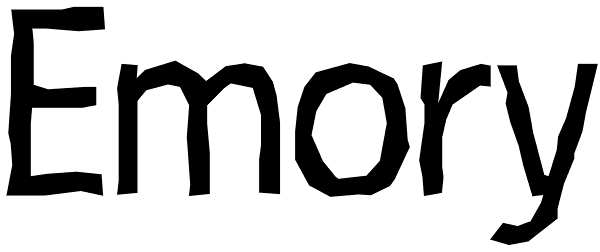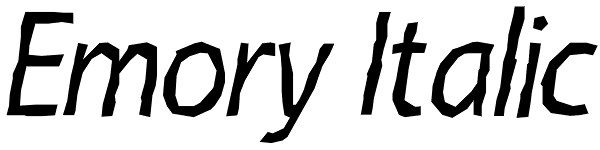
Emory
Emory is an easy to grip font family. In OpenType savvy applications, letter pair autoligs help break up the monotony of obviously repeating letters.